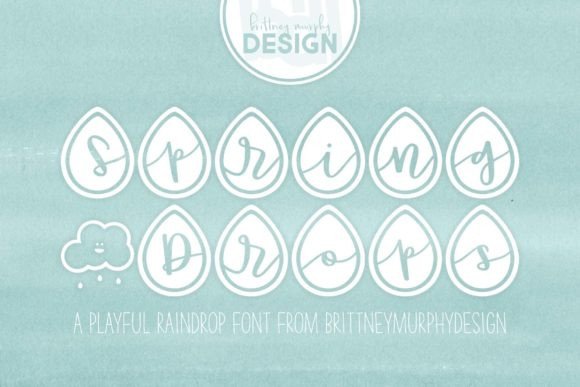
Introducing Spring Drops Font, a decorative typeface that will sprinkle your designs with a delightful touch of whimsy! Created by the talented brittneymurphydesign, this font family boasts cursive letters beautifully encased in outlined rain-drop shapes, making it the perfect choice for adding a dash of cuteness to your springtime decorations.
Imagine your designs blossoming with the charm of delicate raindrops cascading onto the page. Spring Drops Font captures the essence of the season, evoking feelings of joy, freshness, and renewal. Each letter is meticulously crafted to resemble raindrops, creating a truly unique and eye-catching visual experience.
With Spring Drops Font, your creativity can soar like a bird on a sunny spring day. This font is not just a collection of letters; it's a symbol of endless possibilities. Let your imagination take flight as you design greeting cards, invitations, posters, and more. Embrace the magic of the season and let Spring Drops Font transform your projects into works of art.
But that's not all! Spring Drops Font also brings a delightful surprise with its cloud character, represented by an asterisk (*). This charming addition adds an extra touch of playfulness to your designs, allowing you to create whimsical clouds that seem to float across the page.
Whether you're a professional graphic designer or a DIY enthusiast, Spring Drops Font is your secret weapon for creating captivating designs that will leave a lasting impression. Its versatility shines through as it effortlessly adds a touch of elegance to wedding invitations or a fun twist to children's book covers.